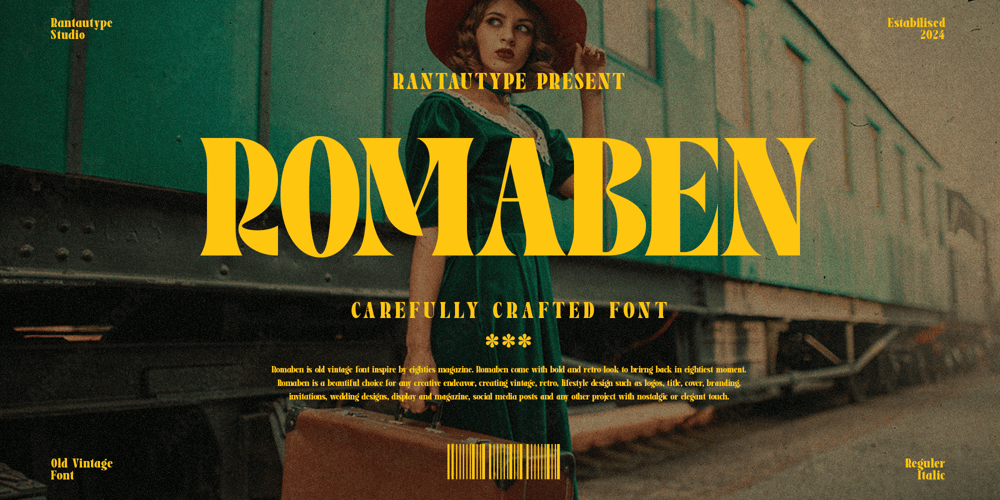
Romaben Font Family was designed by Yudi Pratama Chandra and published by RantauType. Romaben contains 2 styles and family package options. Romaden is elegant vintage font with nostalgic charm and prestigious shape captures the essence of the 70s 80s 90s. Romaben bring a special touch in you design project with sharp character more stylish and old-fashioned.Romaden is a perfectly choice for any creative endeavor, chic, lifestyle design such as logos, advertisements, stationery, branding project, display and magazine, invitation, corporate brand, product design, label, business project and many other project with vintage nostalgic touch.What you have: Standart Glyphs Numberial and Functional Ligature and alternate Works on PC & Mac Simple installations Accessible in Adobe Illustrator, Adobe Photoshop, Adobe InDesign, even work on Microsoft Word. Fonts include multilingual support for: Afrikaans, Albanian, Basque, Bemba, Bena, Breton, Catalan, Chiga, Cornish, Danish, Dutch, English, Estonian, Filipino, Finnish, French, Galician, German, Icelandic, Indonesian, Irish, Italian, Kinyarwanda, Luxembourgish, North, Norwegian, Portuguese, Romansh, Rombo, Rundi, Scottish, Gaelic, Sena, Shambala, Shona, Soga, Somali, Spanish, Swahili, Swedish, Swiss, German.Thank you for your purchase!Hope you enjoy with our font!